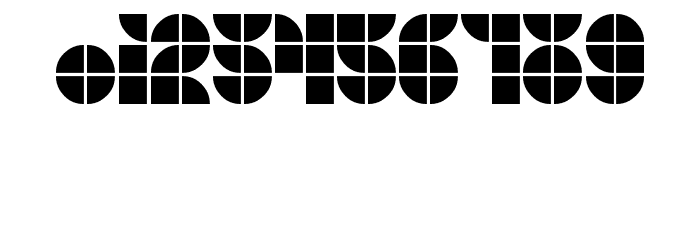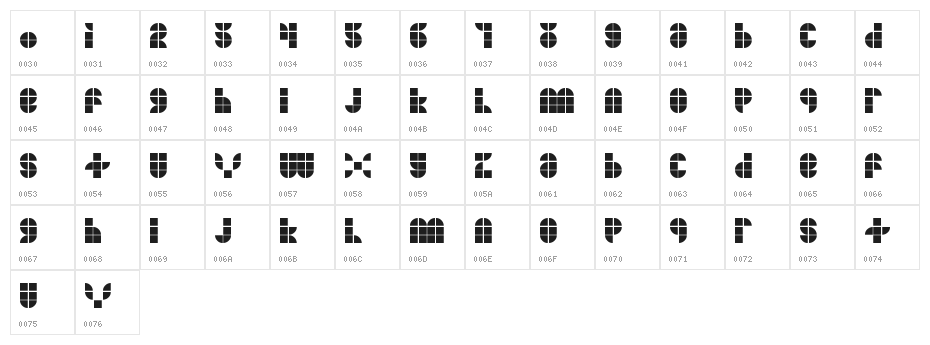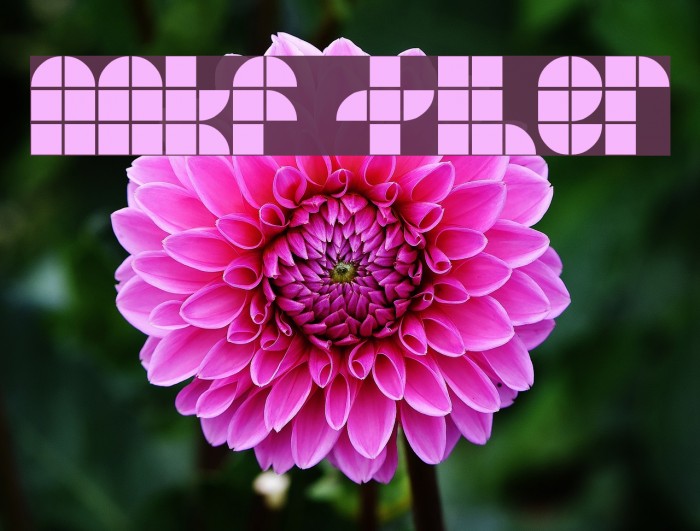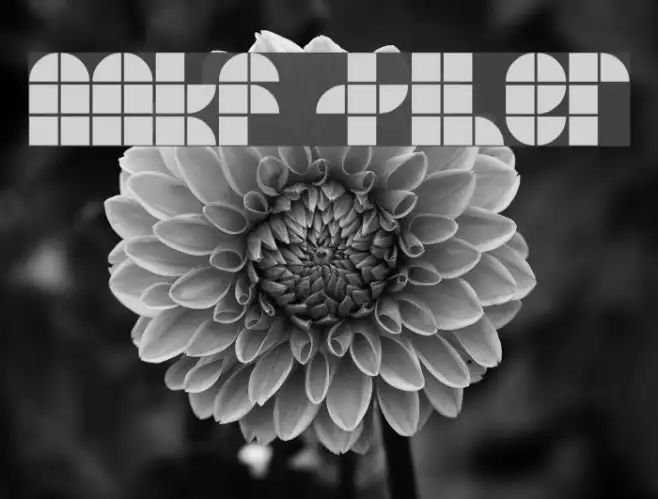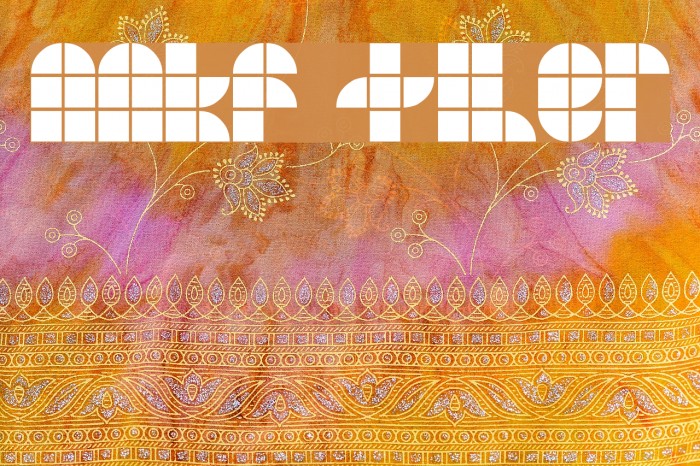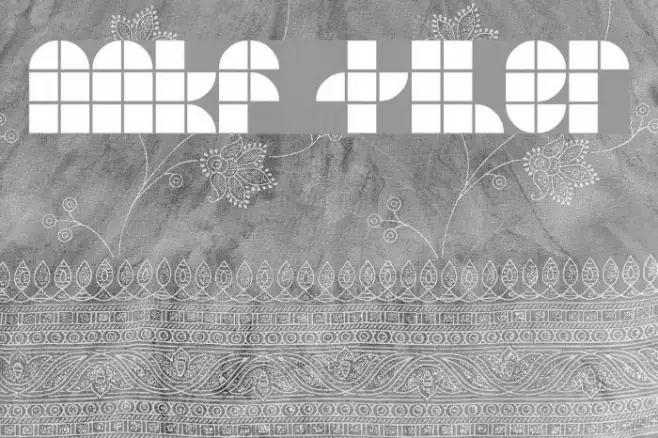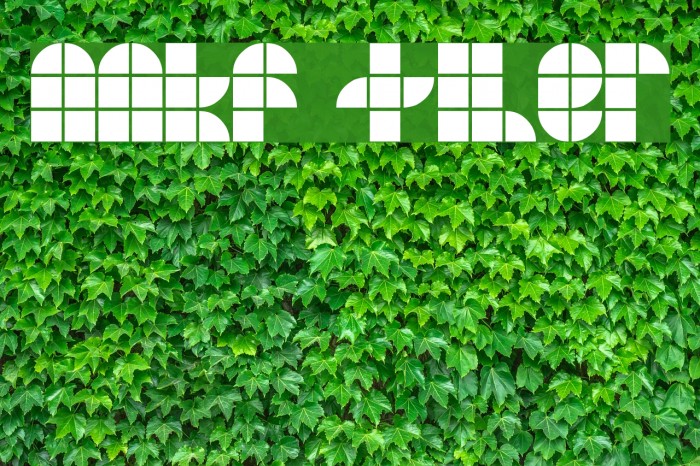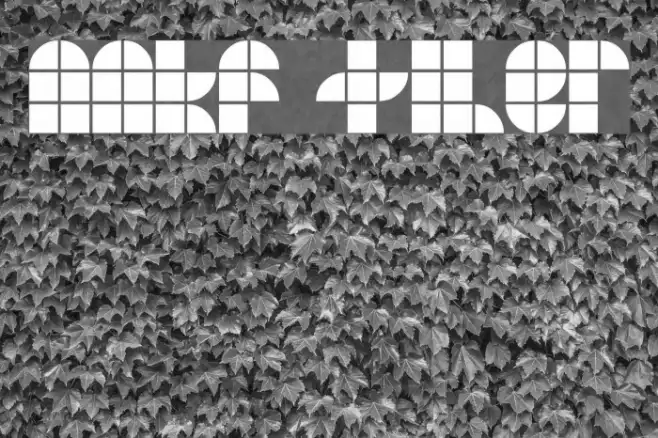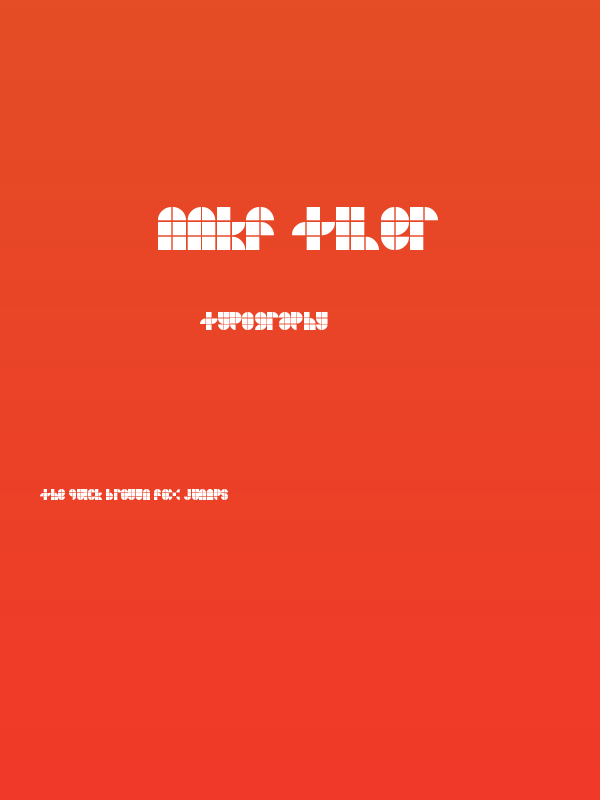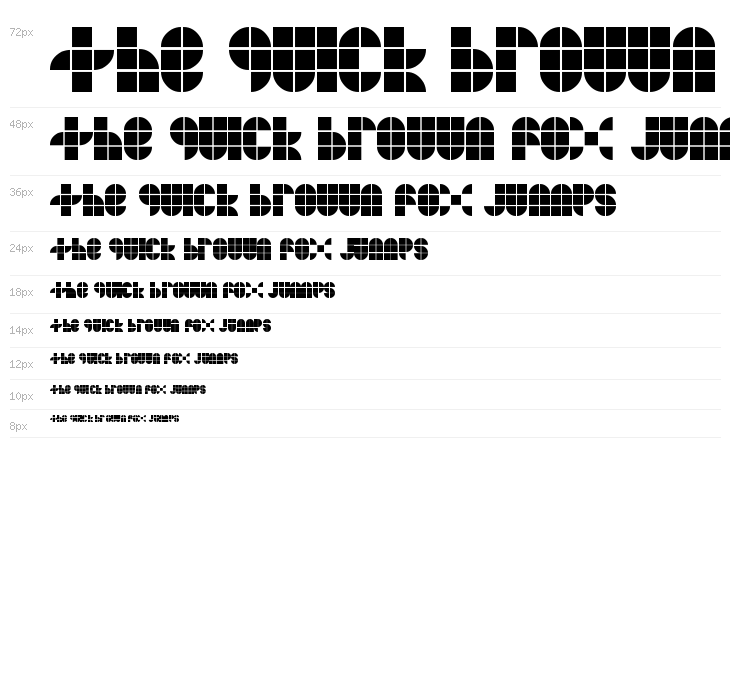
MKF Tiler Font
MKF Tiler Description
This font features a highly geometric and modular design, characterized by its use of circular and square shapes to form each letter. The letters are constructed with a grid-like pattern, giving it a tiled appearance. This design choice results in a bold and striking visual impact, making it ideal for attention-grabbing headlines or artistic projects. The uniformity and symmetry of the characters contribute to a modern and futuristic aesthetic. The font's unique style is both decorative and functional, offering a distinct look that stands out in any design context.
| Proposed Projects | Ideal for modern art projects, futuristic branding, and eye-catching headlines. |